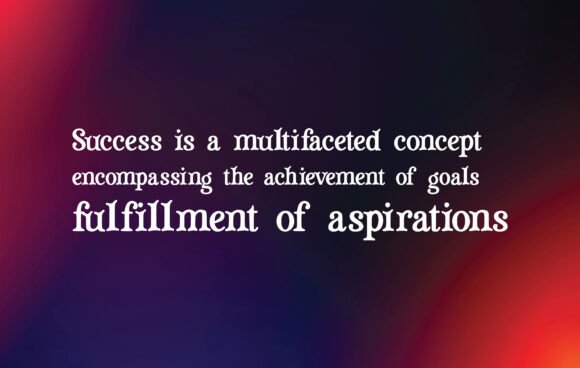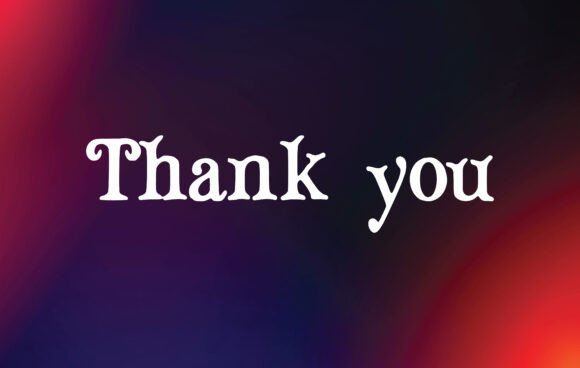
Introduction to Issac Font
Issac is a lovely and beautiful serif font.
Key Features of Issac Font
Why Choose Issac Font?
Issac Font offers exceptional quality and versatility, making it a valuable addition to your design toolkit. Whether you’re creating for personal projects or commercial use, Issac Font delivers professional results.